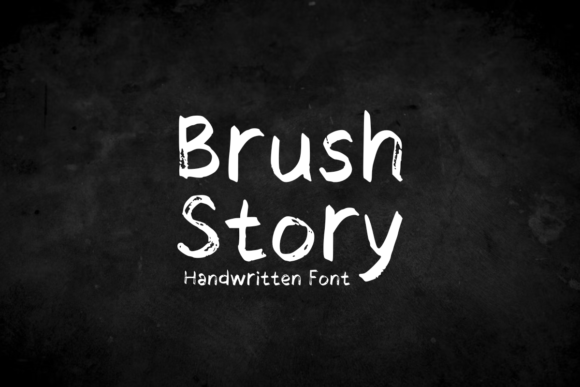
Unleashing Your Creativity with the Brush Stroke Font
Have you ever found yourself staring at a blank page, desperate for that one thing to spark your creativity? Maybe it’s a vibrant color palette, a quirky illustration, or a unique font that sets your imagination ablaze. For designers, that elusive spark can make all the difference between a good design and a truly great one.
| 👤 Author | SiapGraph |
Enter the Brush Stroke Font, a stunning new creation from a professional font designer with a passion for artistic expression. This elegant font features a beautiful brush stroke style that’s perfect for a wide range of design projects, from casual crafts to professional Cricut designs. With the Brush Stroke Font, you’ll have the freedom to create stunning visuals that capture the essence of your brand or personal style.
Key Features of Brush Stroke Font
- Unique Characteristics: Distinctive brush stroke style, mimicking hand-painted effects, adding a personal touch to designs.
Designer Review: Brush Stroke Font
Overall, I have mixed feelings about the Brush Stroke Font. On one hand, it’s a unique and artistic choice that can add a touch of elegance to your design projects. ✨ The font’s handwritten feel and subtle imperfections give it a personal touch that can make your content stand out.
Here are some of the things that work well in the Brush Stroke Font:
- ✨ Uniqueness: The Brush Stroke Font is not a common choice, making it a great option for designers who want to add some personality to their projects.
- ✨ Artistic feel: The font’s handwritten feel and imperfections give it a touch of elegance that can make your content stand out.
- ✨ Versatility: The Brush Stroke Font can be used for a variety of projects, from headings and titles to body text and quotes.
- ⚠️ Readability: The font’s imperfections and variability in letterform can make it difficult to read in certain situations, especially at smaller font sizes.
- ⚠️ Consistency: The Brush Stroke Font is not a consistent font, and its imperfections can make it difficult to use in projects where consistency is key.
- ⚠️ Limited legibility: The font’s artistic feel can sometimes make it difficult to read, especially for people with vision impairments.
Overall, I would recommend the Brush Stroke Font for designers who want to add a touch of elegance and personality to their projects. However, it’s not a font that I would recommend for projects where readability and consistency are crucial.
Brush Stroke Font is ideal for creative and artistic projects, such as:
- Handwritten quotes and typography
- Watercolor-inspired designs
- Artistic headings and titles
- Illustrative and creative graphics